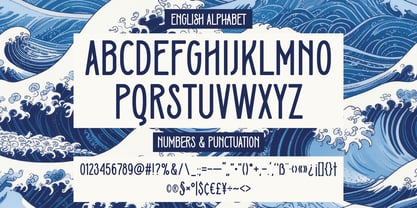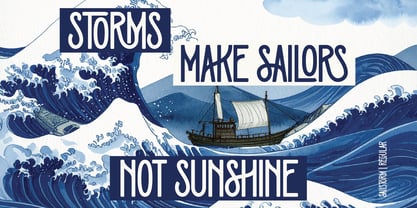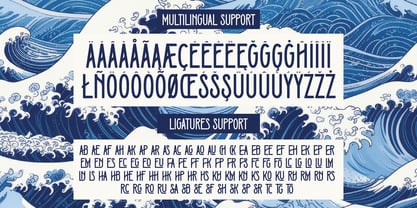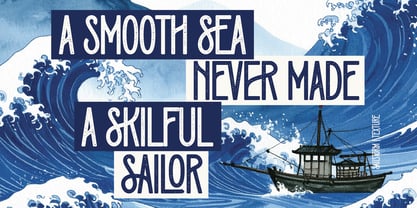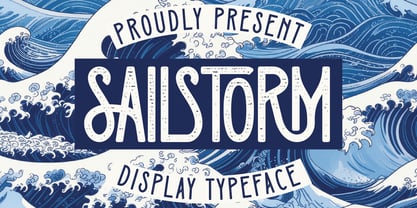
Sailstorm
by Vozzy
The Sailstorm Font Family was designed by Oleg Voznyy and published by Vozzy. Sailstorm contains 2 styles and family package options. More about this family
Introducing "Sailstorm," a distinctive font designed to make your headlines and accent inscriptions stand out. Perfect for capturing attention, this font features a wide array of additional characters, punctuation marks, and multilingual options, ensuring versatility in your designs. With a generous selection of standard ligatures, Sailstorm enhances readability and aesthetic appeal—just ensure your software supports this OpenType feature. Elevate your creative projects with the striking presence of Sailstorm, ideal for branding, web design, and editorial use.